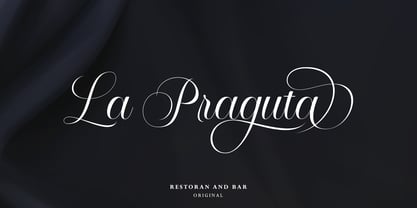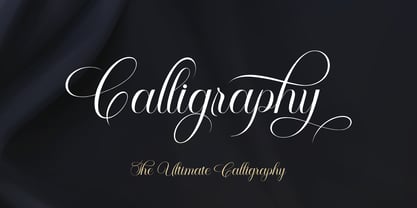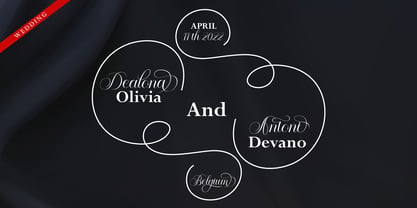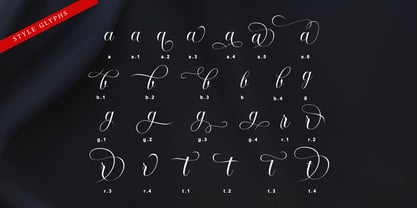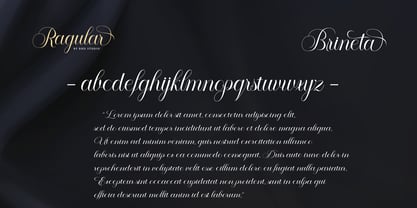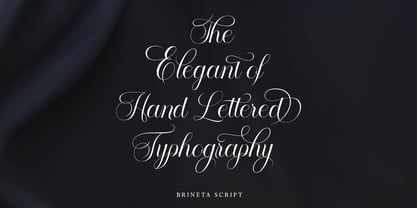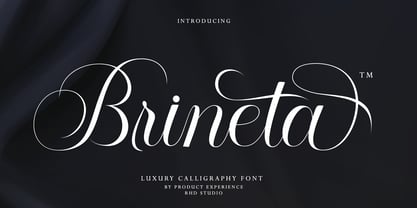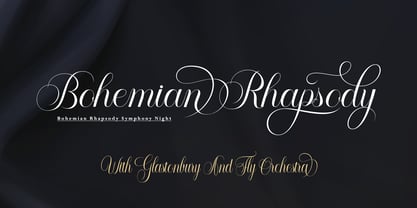
Brineta
by Rhd Studio
The Brineta Font Family was designed by Rahmad Rizky and published by Rhd Studio. Brineta contains 1 styles.
Brineta is a very well-crafted calligraphy font, designed with a classic, feminine and elegant touch. This beautiful typeface is available in two versions: regular and bold.
Brineta stands out with its extensive collection of glyphs. Each letter has many alternatives, which are easily accessible by adding a number after the letter you want to change, for example, just type: a2, a3, a4, and more.
Brineta is very versatile, offering endless possibilities for customization and creativity in your designs, such as Branding, Logos, Advertisements, Merchandise, Social Media Posts, Packaging, Magazine Covers, Websites, Wedding Invitations, and much more.